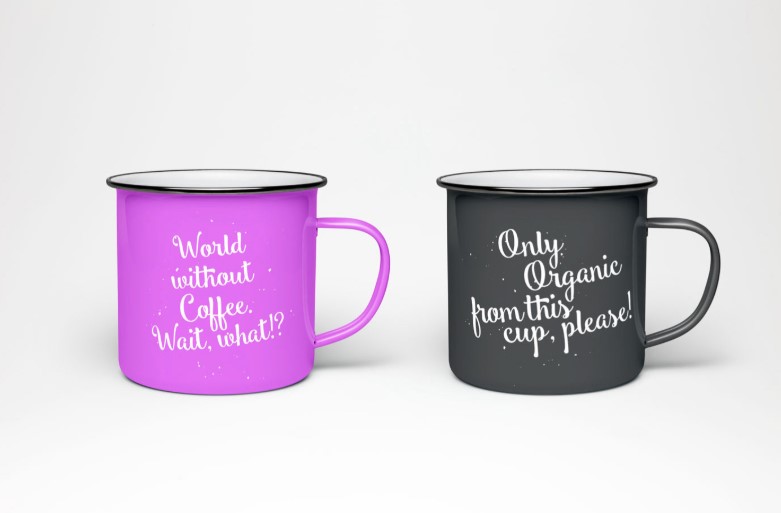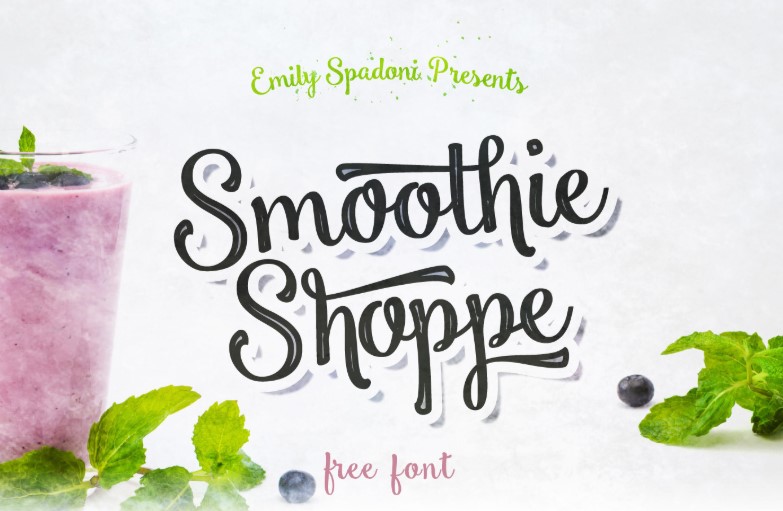
Smoothie Shoppe Font
Smoothie shoppe font is a magnolia typeface that is similar to milkshake font. This typeface is mostly utilized on websites and HTML tags. With this font‚Äôs useful spacing and incredible device, that looks as if bariol font you could without trouble creates any designs of your preference on the manner to offer gold-well-known wonderful and legibility. It’s miles considerably used for loads of programs tremendously for signage and others rent alike.
You could see that masses of top-notch elements that this font shape can gift and it has loads of font weights available as nicely. Smoothie Shoppe Font Free this font hassle an italic, hand-drawn, bold texture. Top-notch for any headline or titling capabilities. This font is also regarded because of the caviar dreams font for text.
It’s miles just like paintings gift-day appreciably used by artists to many format layouts.